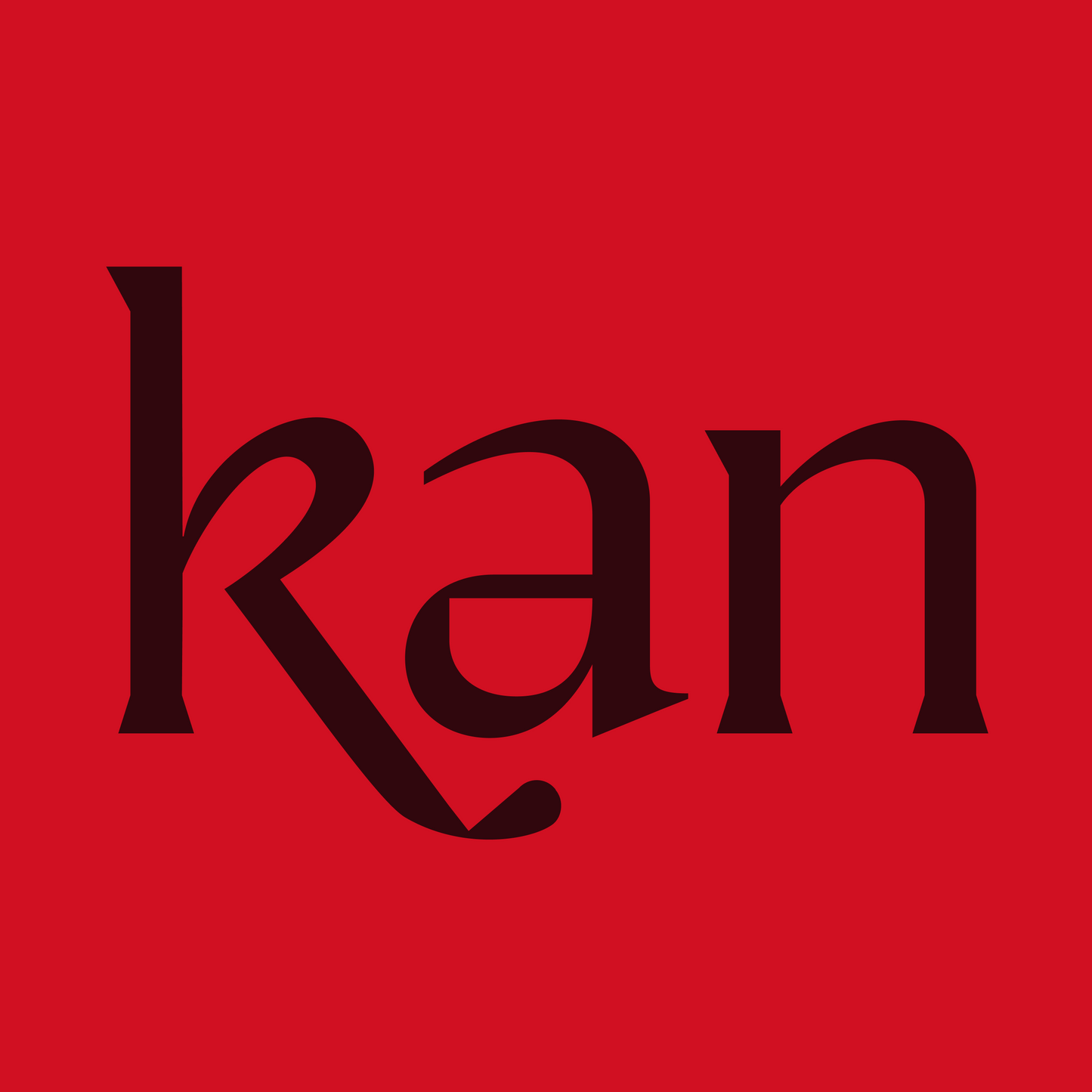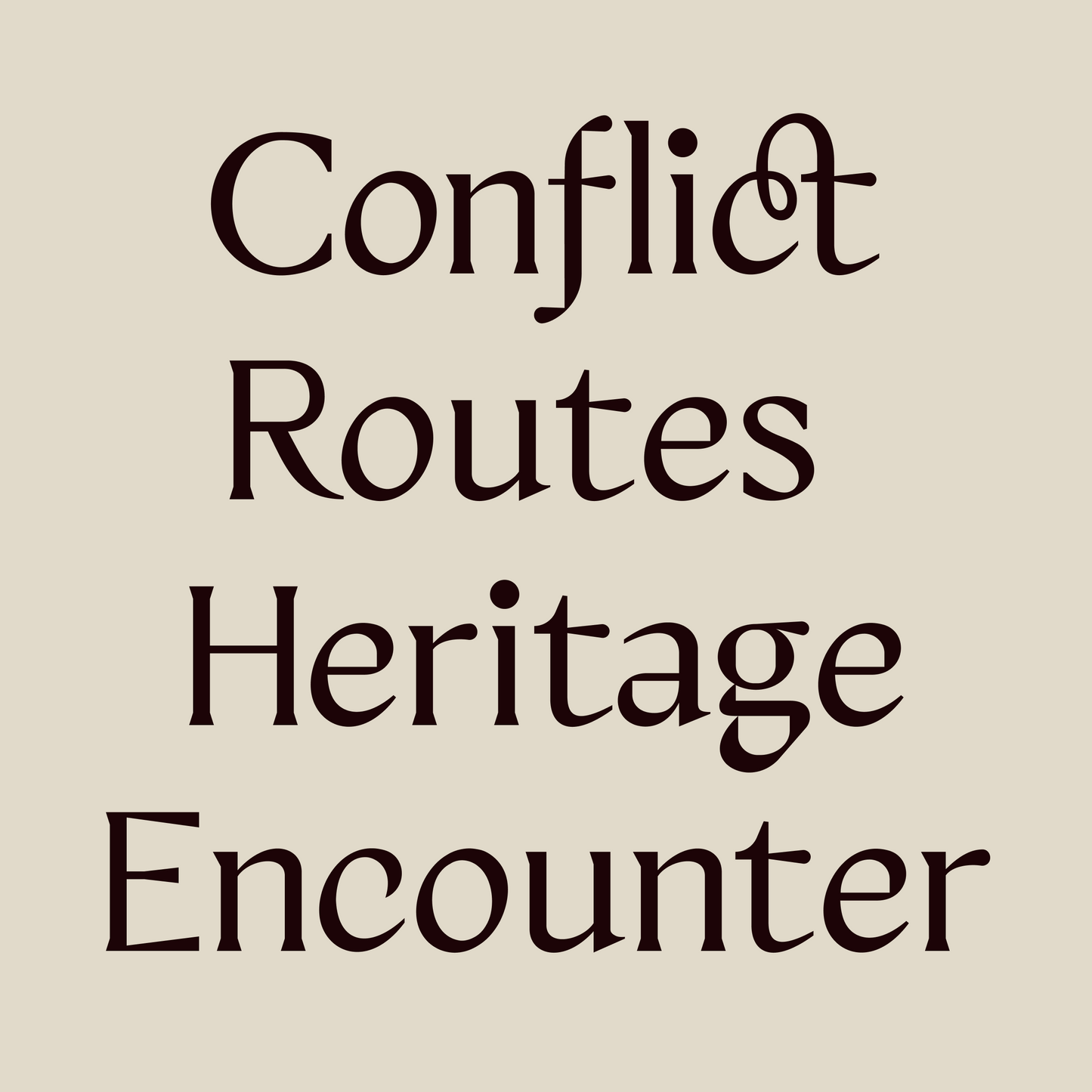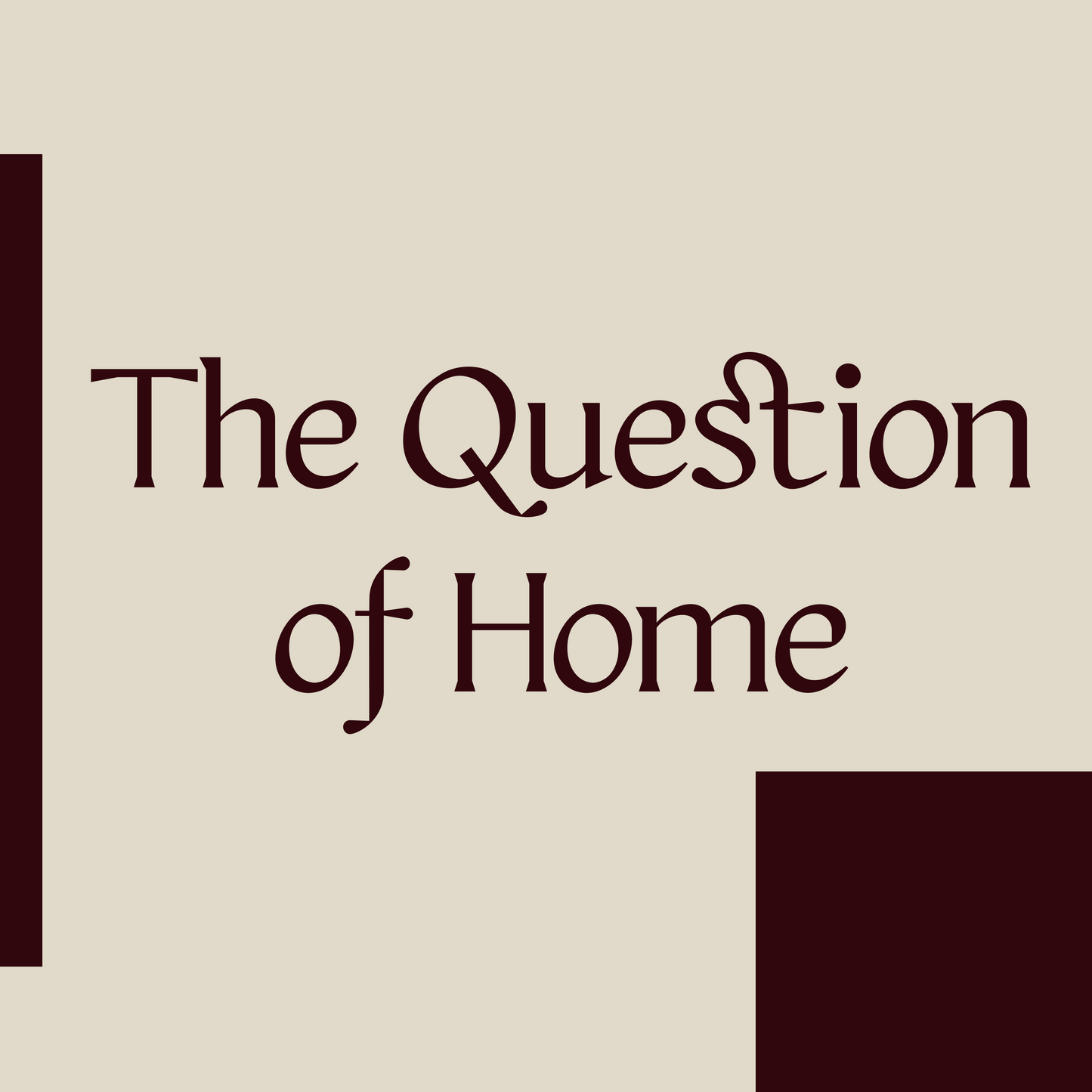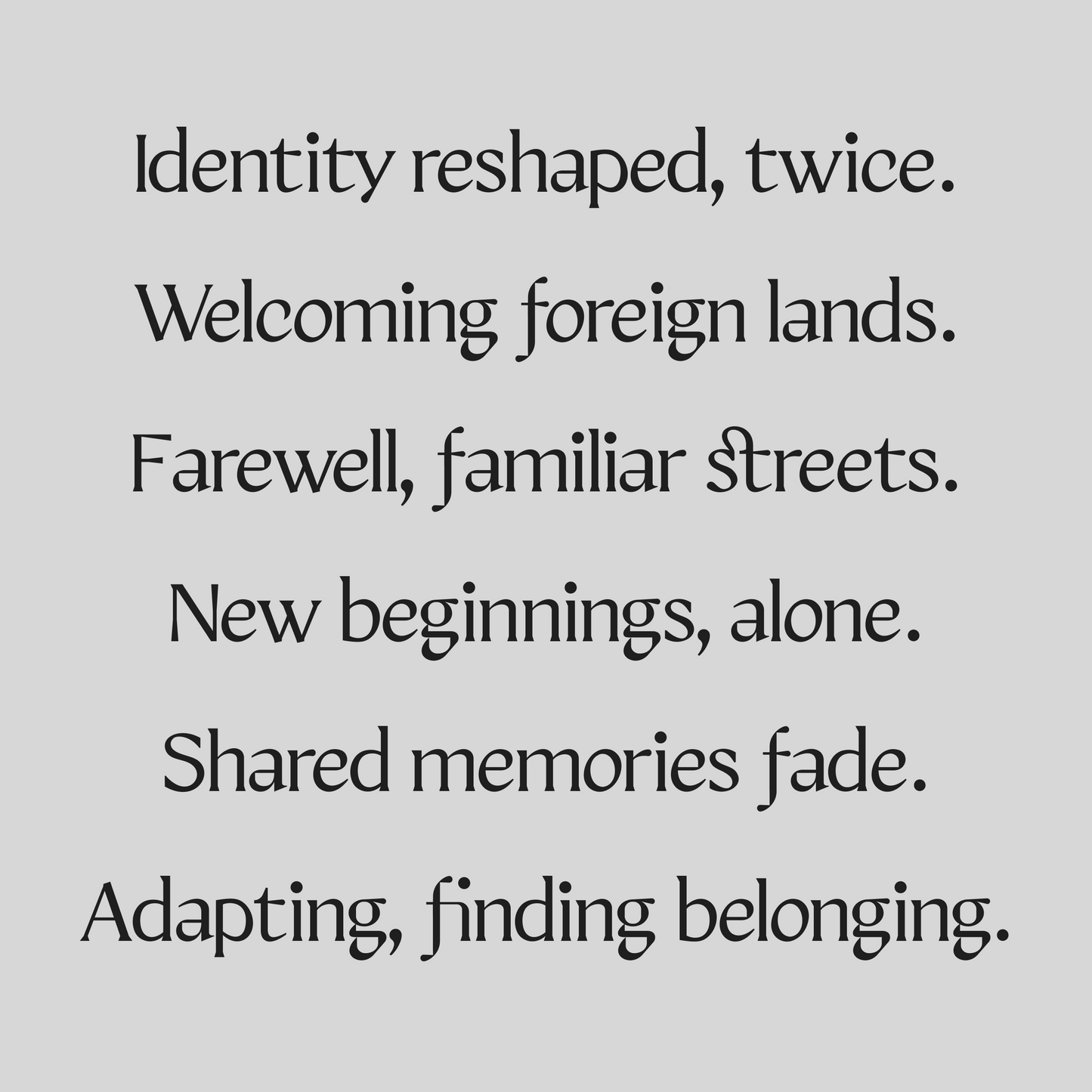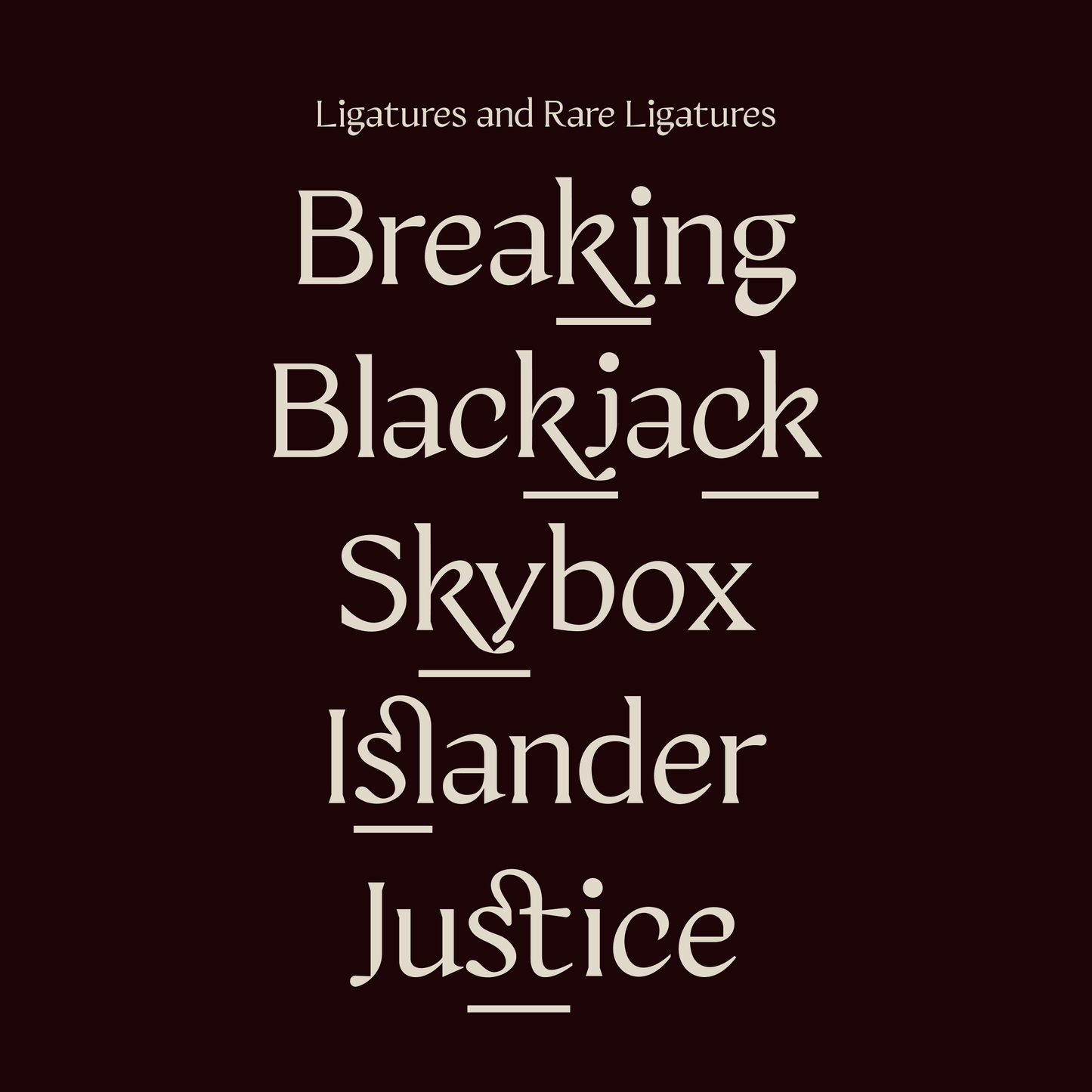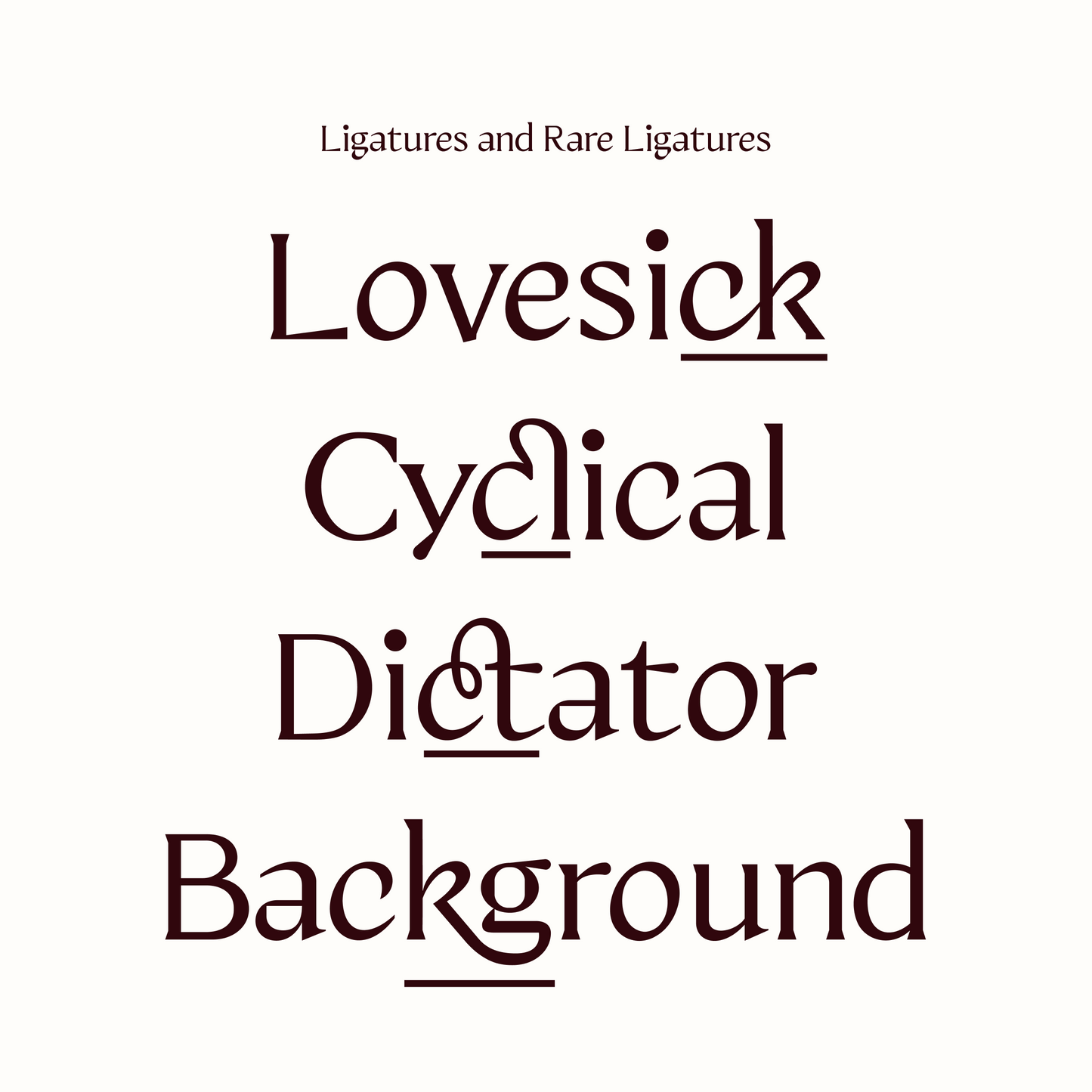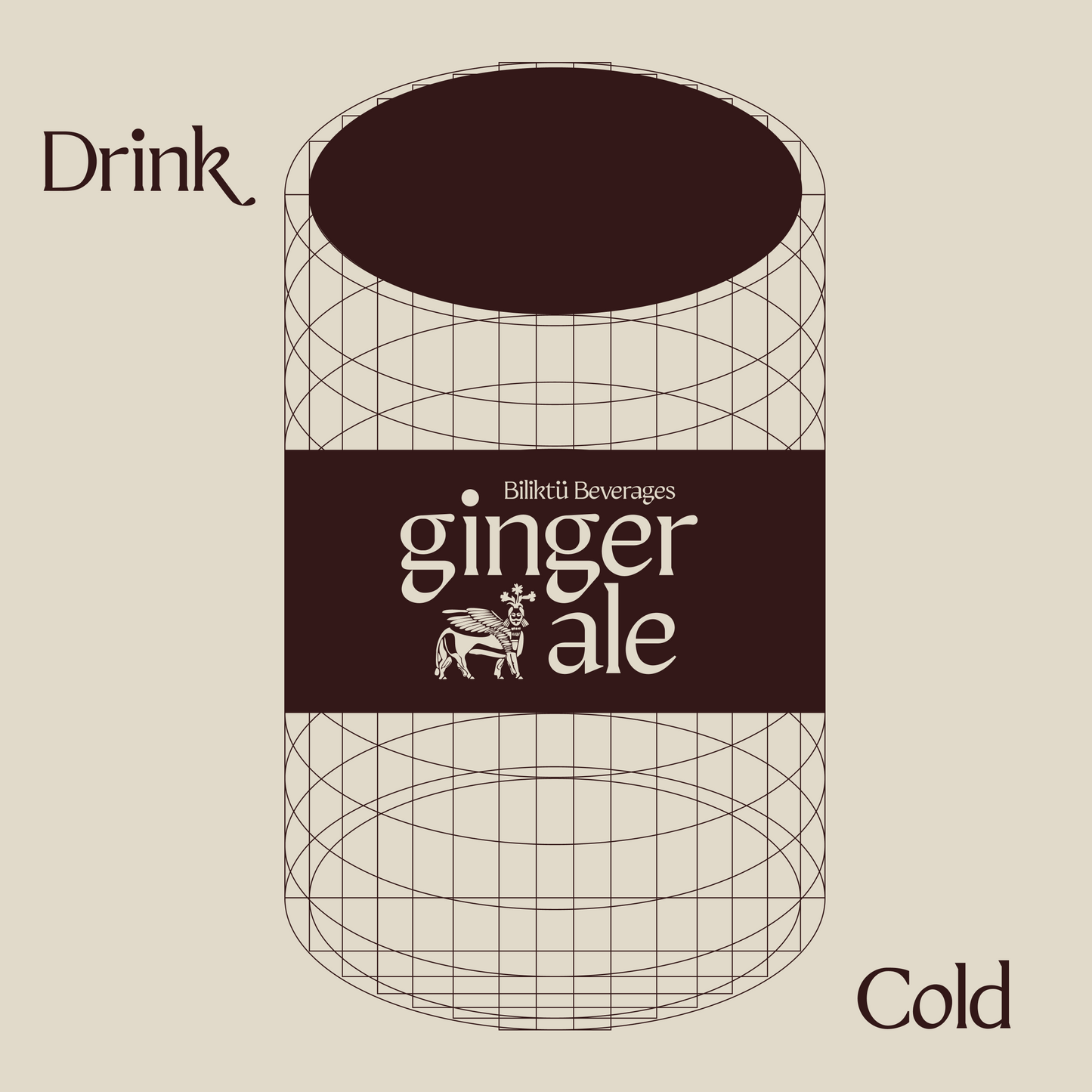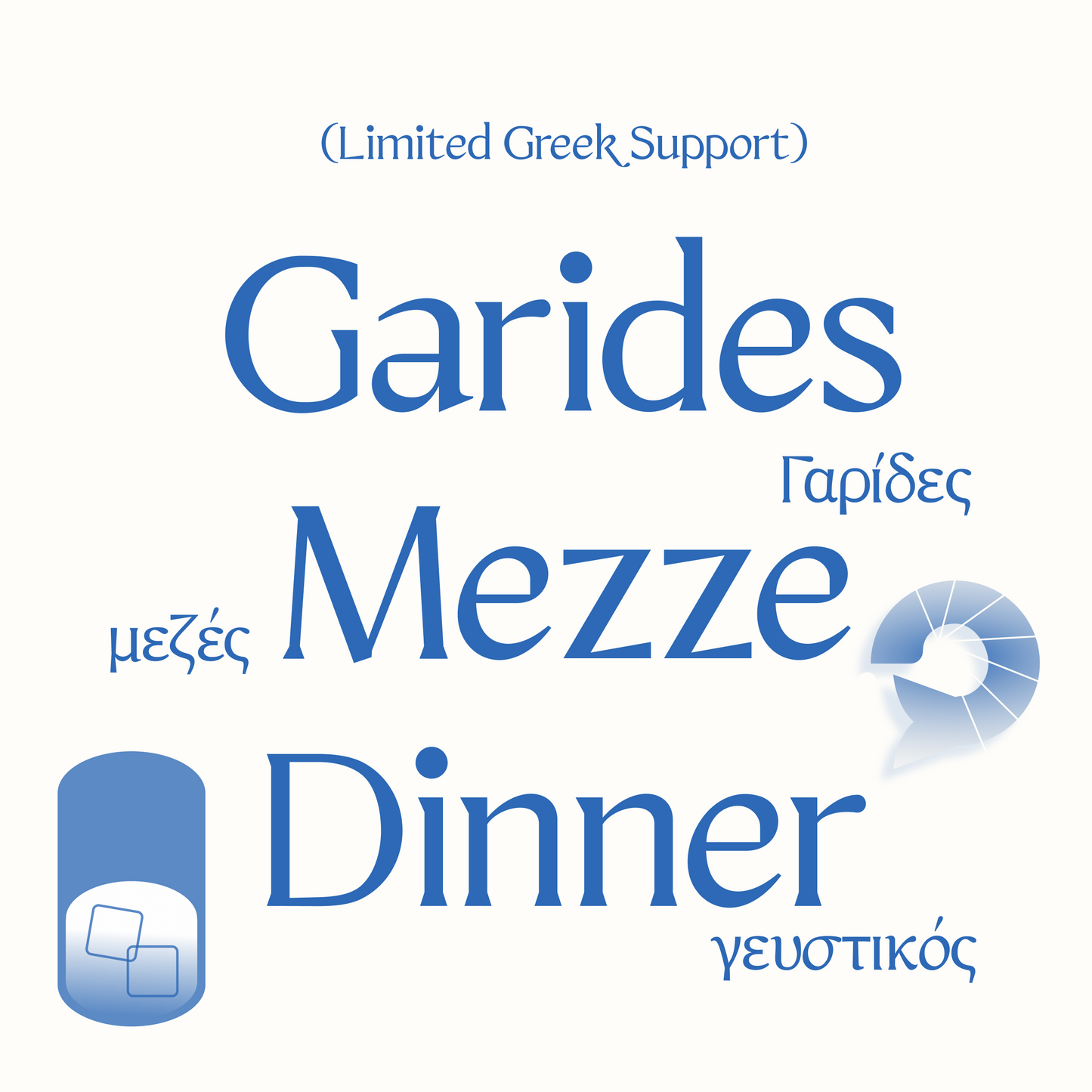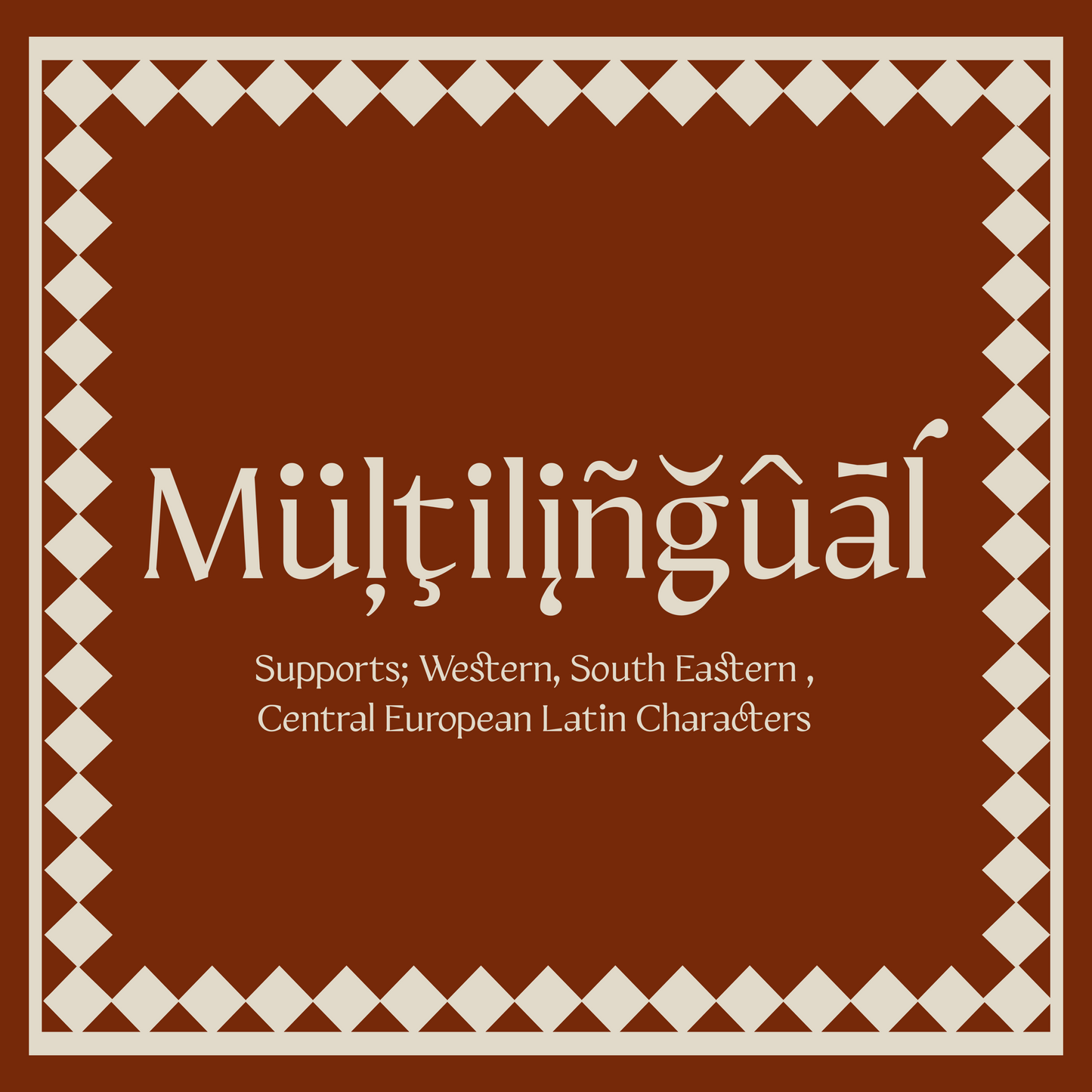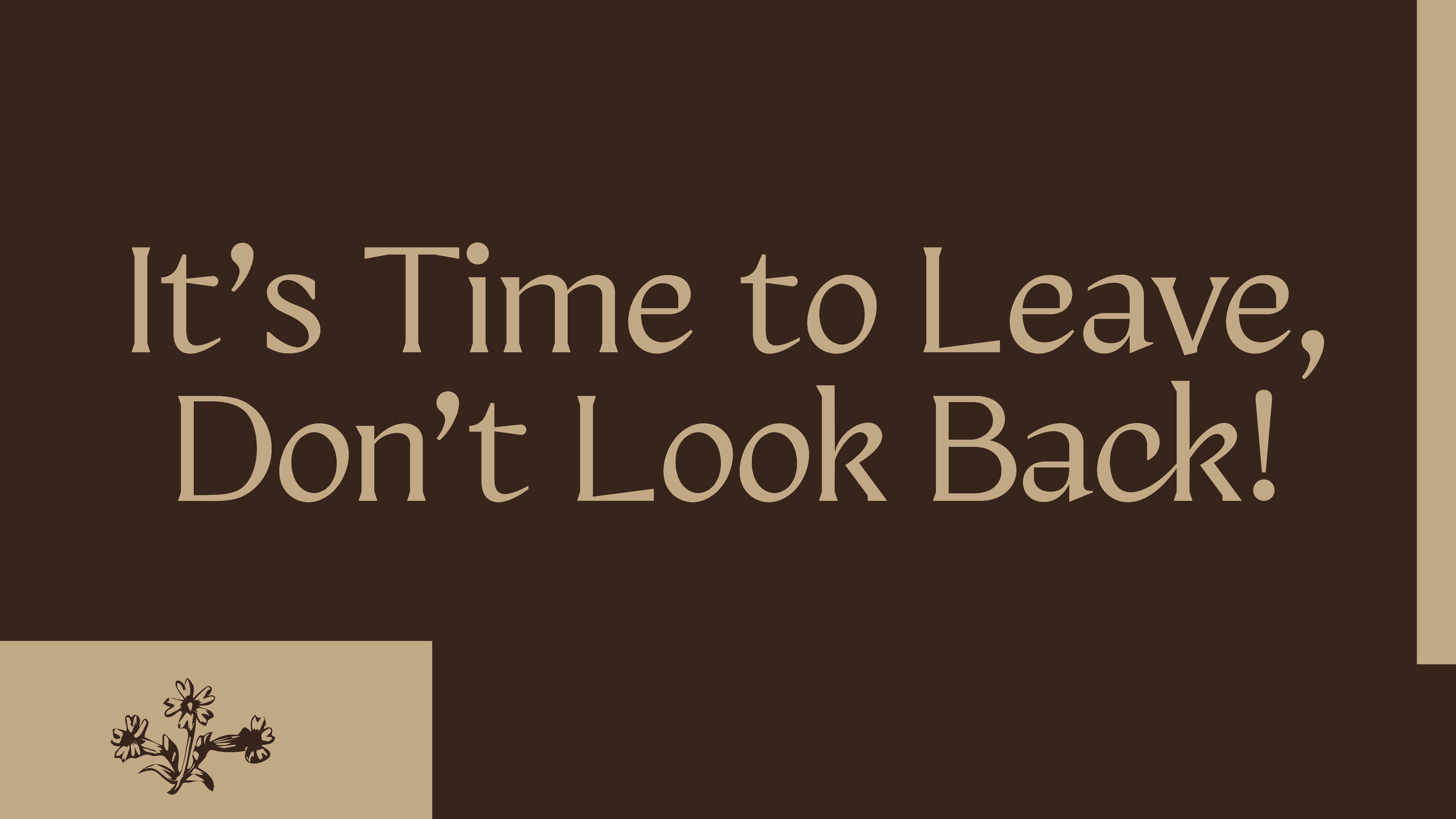
BM Agia
Inspired by the late 1800s in the Balkans and Mesopotamia, Agia reflects stories of loss, separation, and becoming strangers to familiar neighbours. It captures these emotions through its cultural and artistic essence.
- Uppercase & lowercase
- 24 ligatures